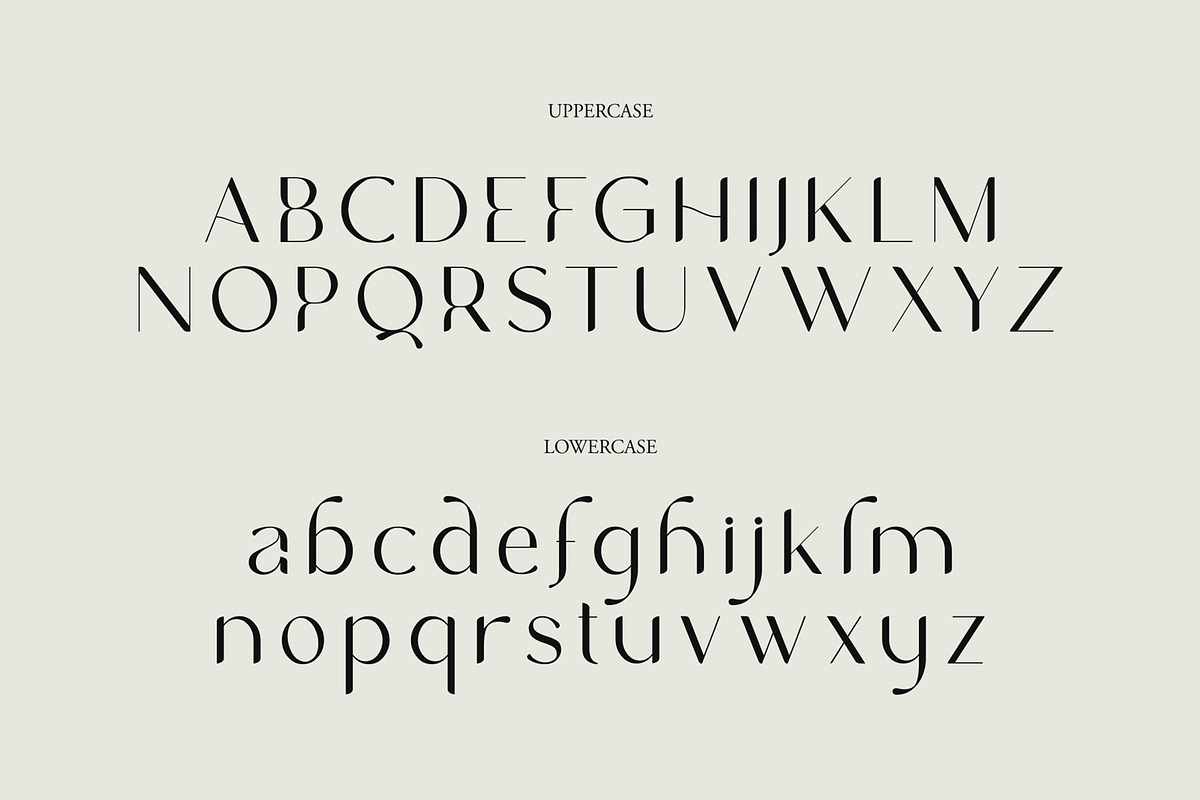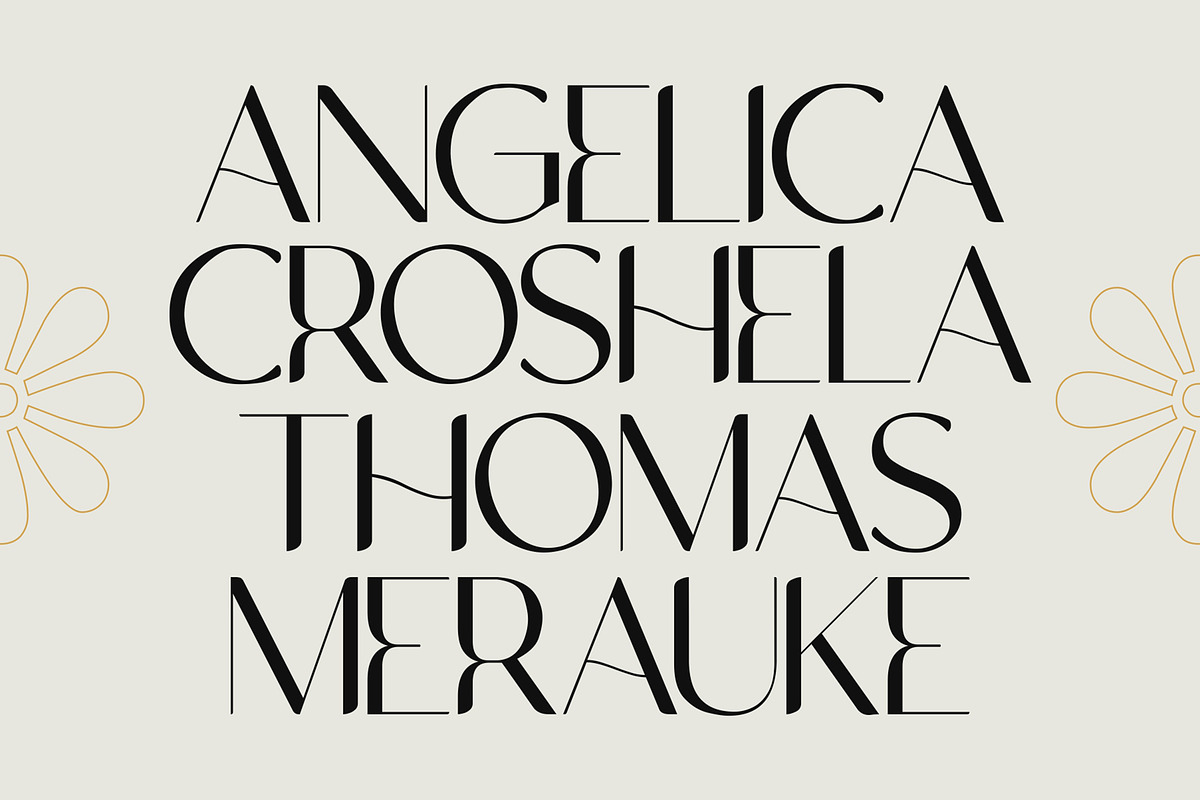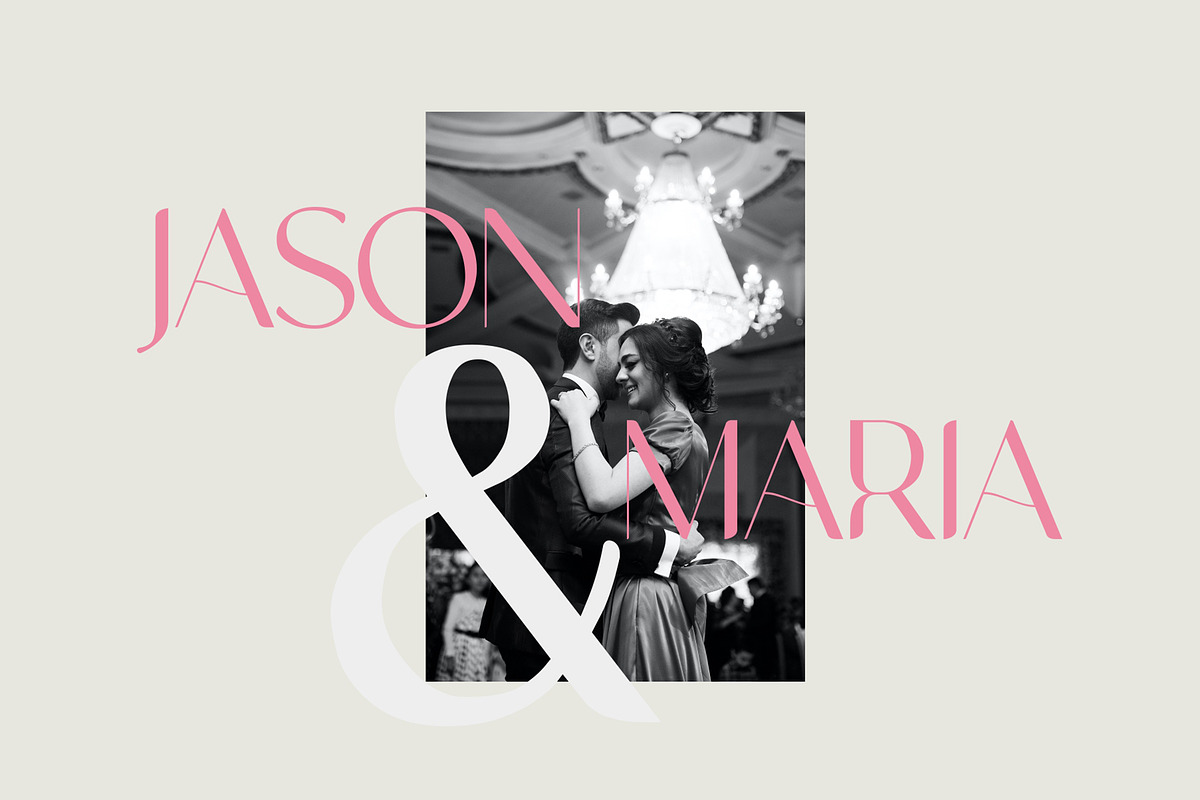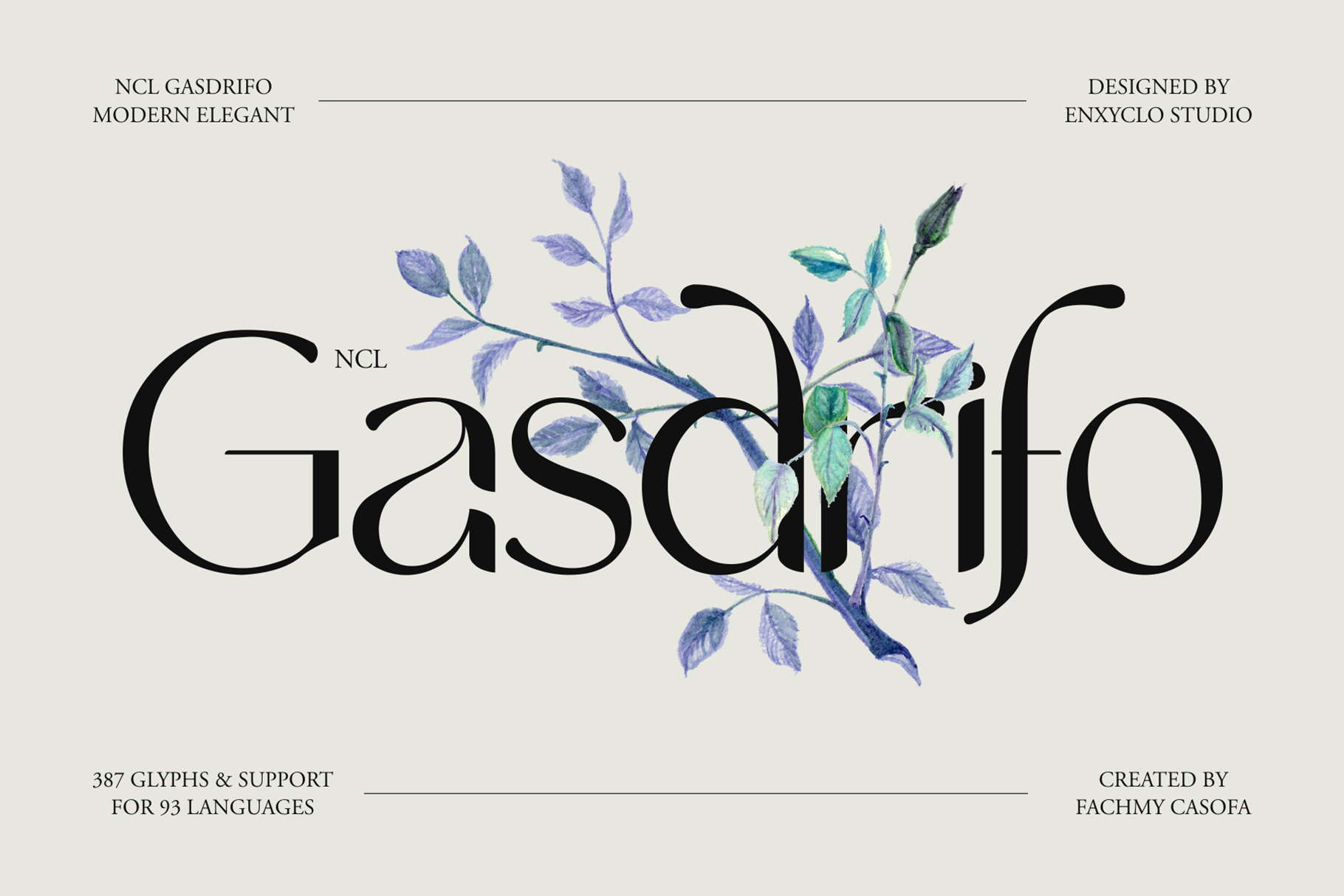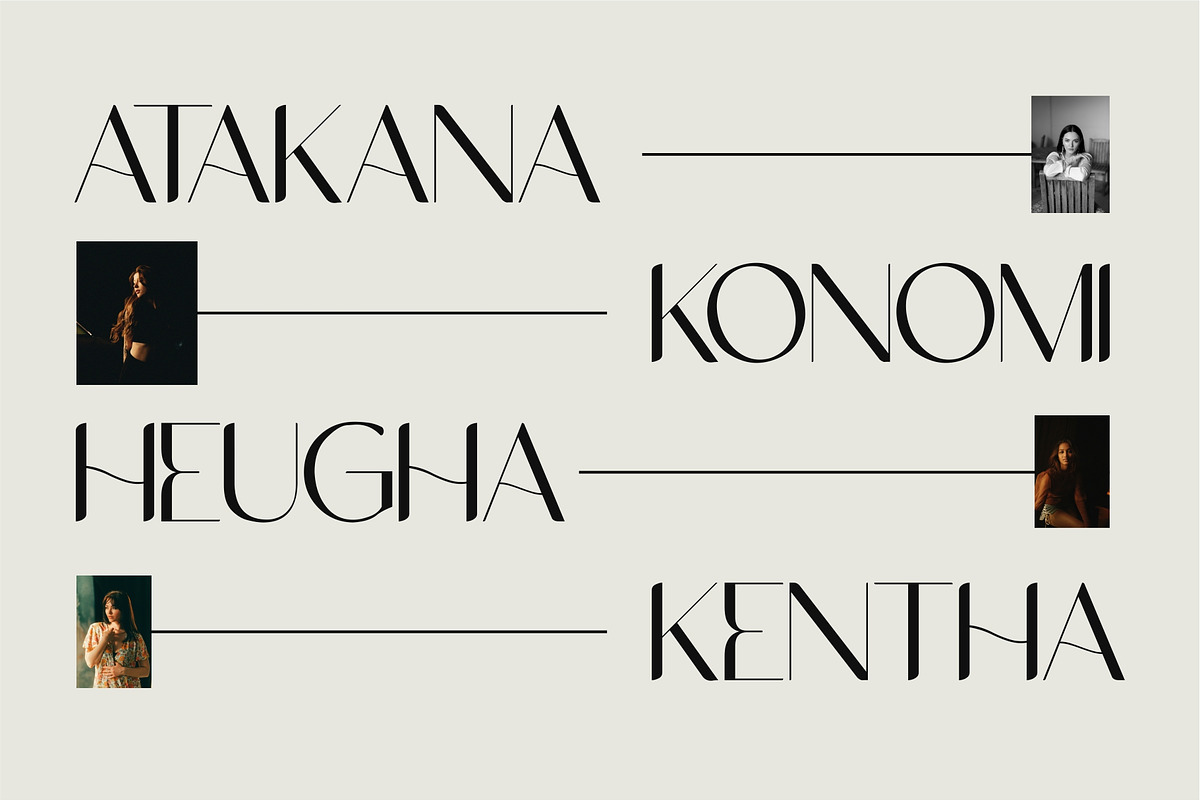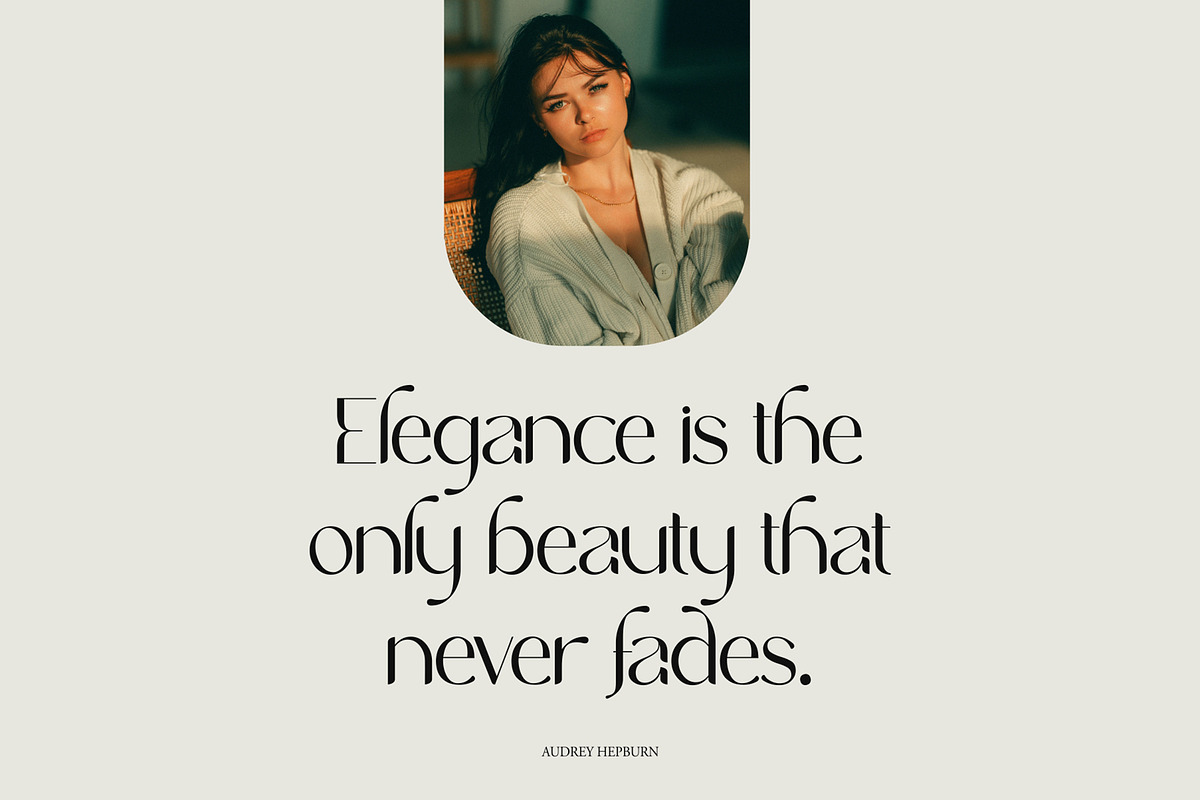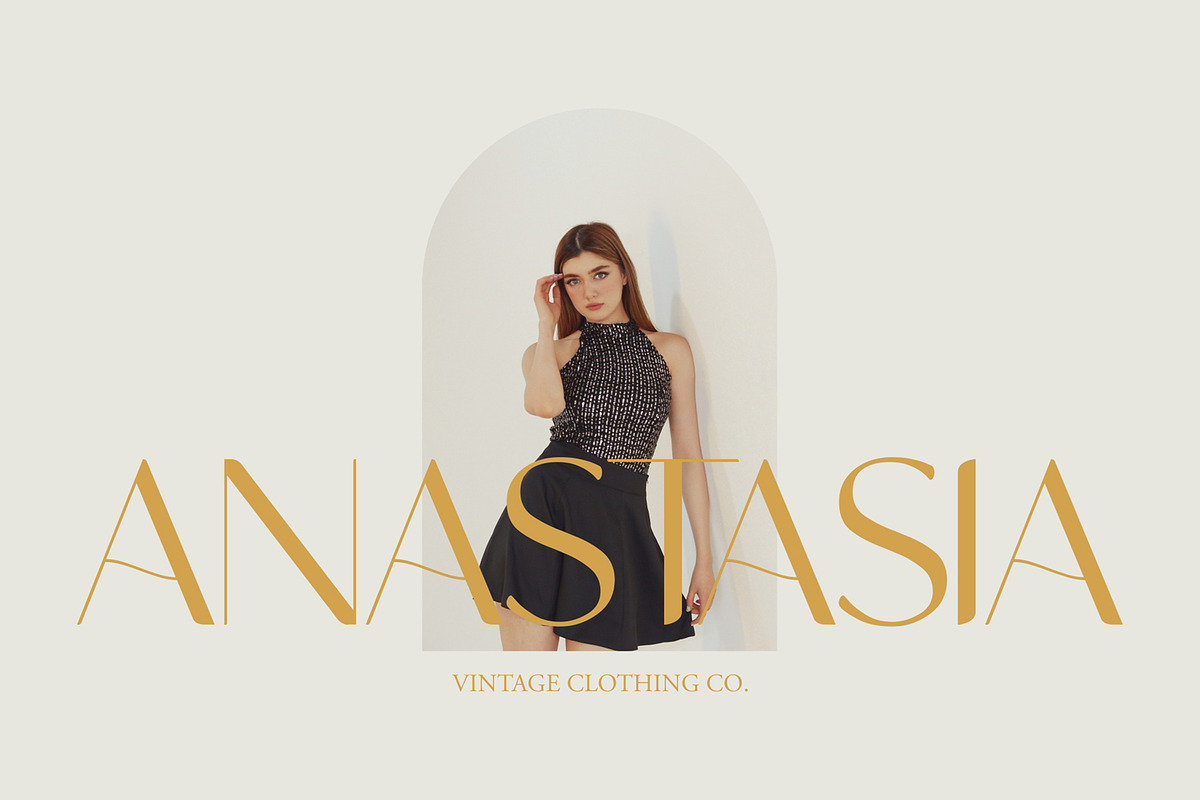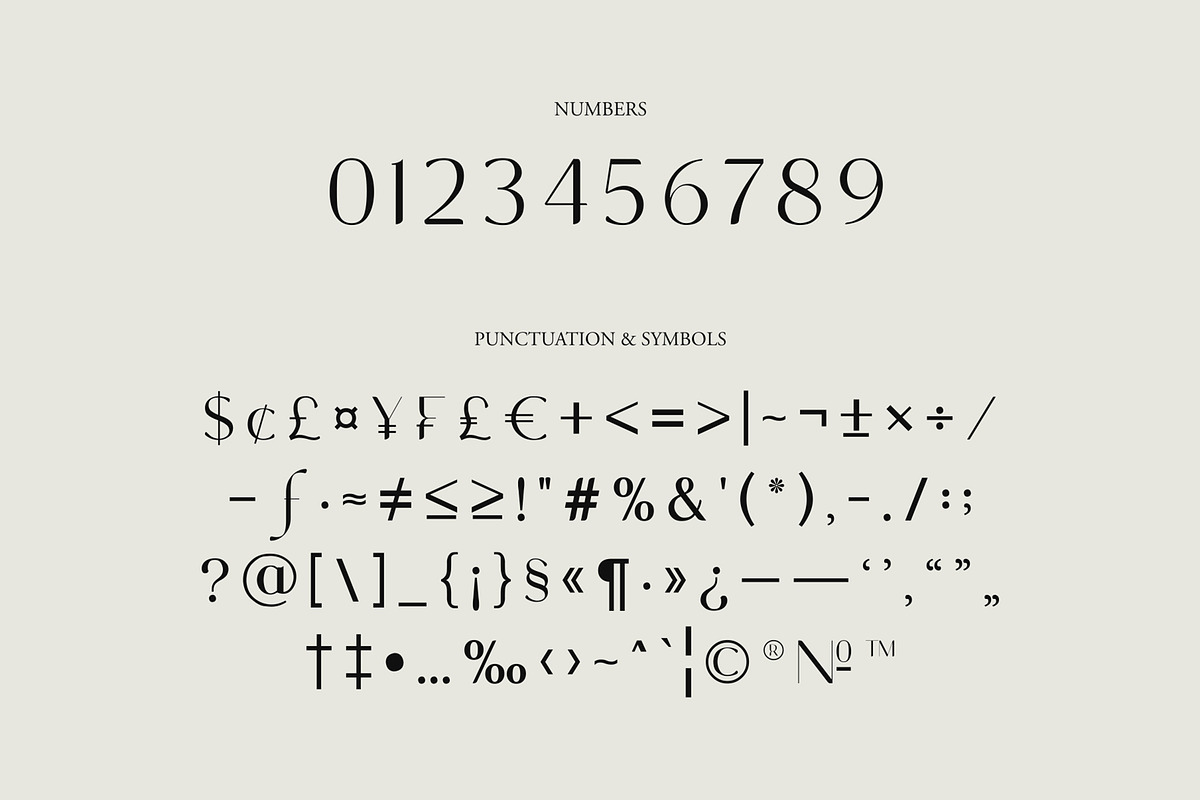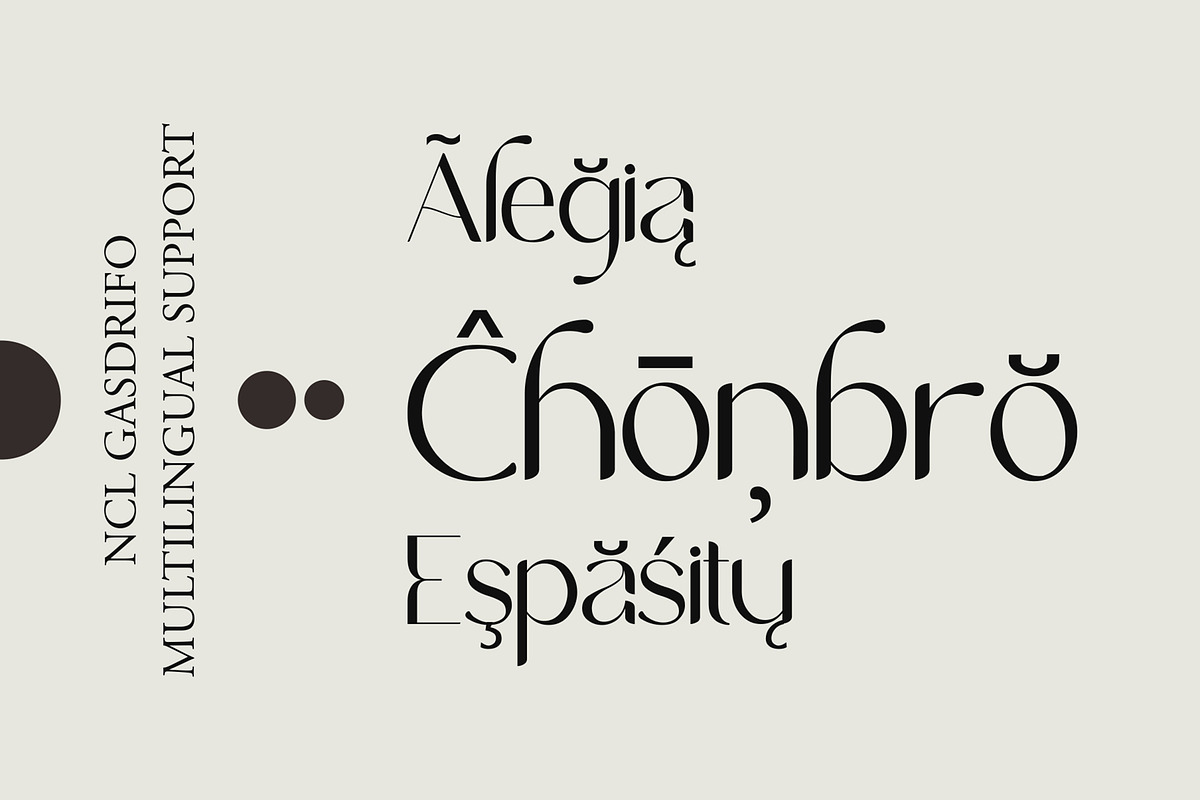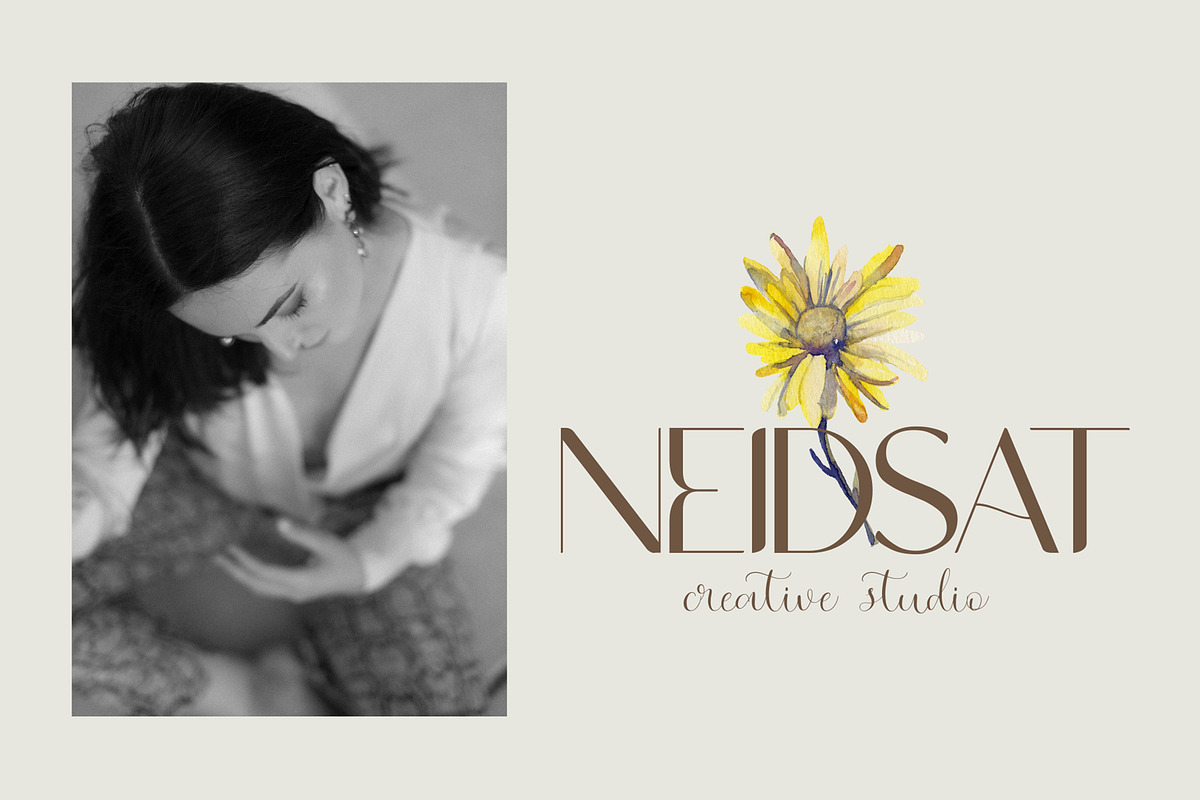
NCL Gasdrifo - Modern Elegant Font
NCL GASDRIFO is a modern elegant font. Masterfully designed to become a true favorite, this font has the potential to bring each of your creative ideas to the highest level! It was purposely crafted to be used in large point sizes, although it doesn’t lose its magic in small point sizes. It is perfect for wedding, headline, billboard, magazines, website, titles, poster, branding, and logos. No matter the topic, this font will be an incredible asset to your fonts’ library, as it has the potential to elevate any creation. With this beautiful font, absolutely you can make your project stand out from the rest.
- Contains 387 Glyphs
- Numeral, Punctuation & Symbols
- Support for 93 Languages: Afrikaans, Albanian, Asu, Basque, Bemba, Bena, Breton, Catalan, Chiga, Colognian, Cornish, Croatian, Czech, Danish, Dutch, Embu, English, Esperanto, Estonian, Faroese, Filipino, Finnish, French, Friulian, Galician, Ganda, German, Gusii, Hungarian, Icelandic, Inari, Sami, Indonesian, Irish, Italian, Jola-Fonyi, Kabuverdianu, Kalenjin, Kamba, Kikuyu, Kinyarwanda, Latvian, Lithuanian, Lower Sorbian, Luo, Luxembourgish, Luyia, Machame, Makhuwa-Meetto, Makonde, Malagasy, Maltese, Manx, Meru, Morisyen, Northern Sami, North Ndebele, Norwegian Bokmål, Norwegian Nynorsk, Nyankole, Oromo, Polish, Portuguese, Quechua, Romansh, Rombo, Rundi, Rwa, Samburu, Sango, Sangu, Scottish Gaelic, Sena, Serbian, Shambala, Shona, Slovak, Soga, Somali, Spanish, Swahili, Swedish, Swiss German, Taita, Teso, Turkish, Upper Sorbian, Uzbek (Latin), Volapük, Vunjo, Walser, Welsh, Western Frisian, Zulu.